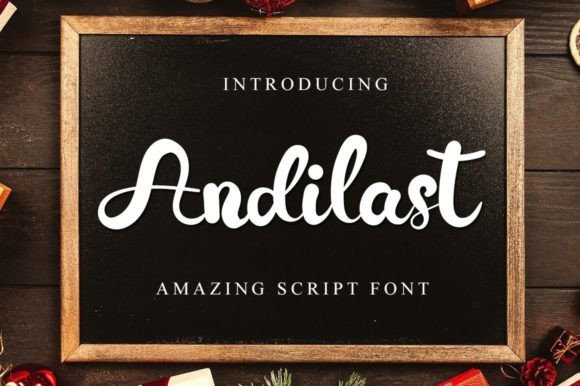
Dive into the mesmerizing world of Andilast, a script font that's a testament to love, beauty, and elegance. Born from the creative mind of Eddygoodboy, this font is not just a collection of letters; it's a symphony of curves and strokes that dance across the page, evoking emotions and leaving an unforgettable impression.
Picture this: the hushed intimacy of a love letter, its words flowing effortlessly from your pen, each stroke imbued with Andilast's graceful charm. The gentle curves mimic the soft whisper of sweet nothings, while the delicate flourishes add a touch of playful elegance, as if each letter is a secret shared between two hearts.
But Andilast's allure extends beyond the realm of romance. Its versatility shines in both formal and informal settings, making it the perfect choice for a wide array of projects. Envision stunning wedding invitations, where Andilast's elegant script transforms your words into an exquisite declaration of love. Or perhaps a chic logo design, where its timeless beauty elevates your brand to new heights.
The possibilities are endless, only limited by your imagination. Andilast is the key that unlocks a world of creative expression, empowering you to add a touch of joy and sophistication to every design. Its fresh and clean aesthetic brings a breath of fresh air to your projects, while its inherent elegance ensures they stand the test of time.
Indulge in the beauty of Andilast and let its enchanting curves captivate your audience. Each stroke is a testament to the power of love, the beauty of simplicity, and the enduring allure of timeless design. Embrace Andilast and watch as your designs bloom with a newfound elegance and charm.